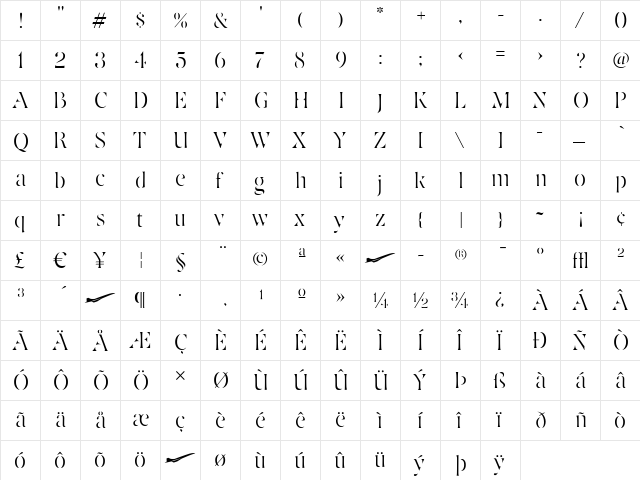
Avia-Light Regular
| Designer | Raphael Boguslav and Jill Pichotta |
Design Context for Avia-Light Typeface
Avia-Light takes a measured approach to typography — its balanced proportions and neutral character make it a reliable workhorse for both digital and print work. Its slender proportions lend an understated elegance to any composition.